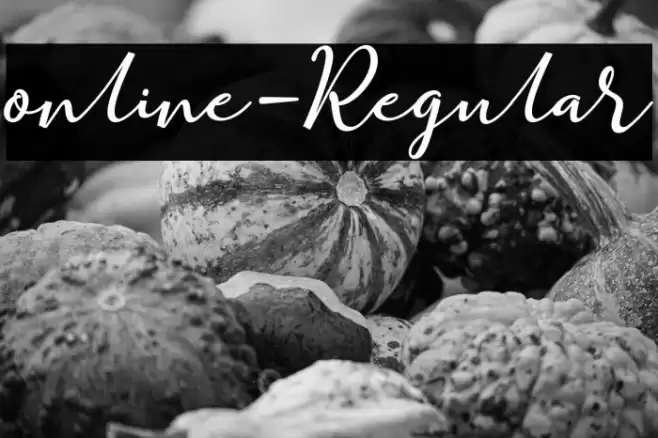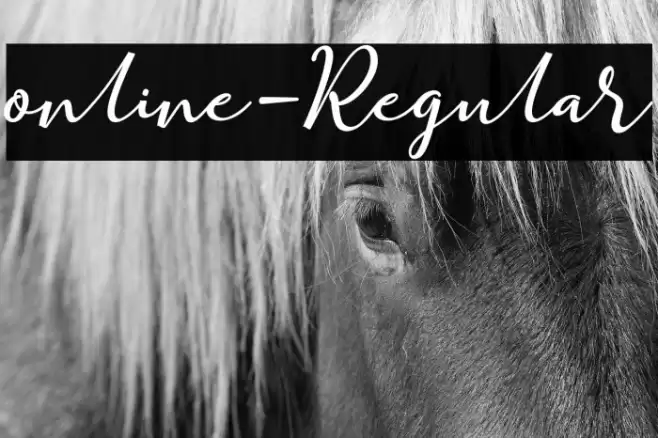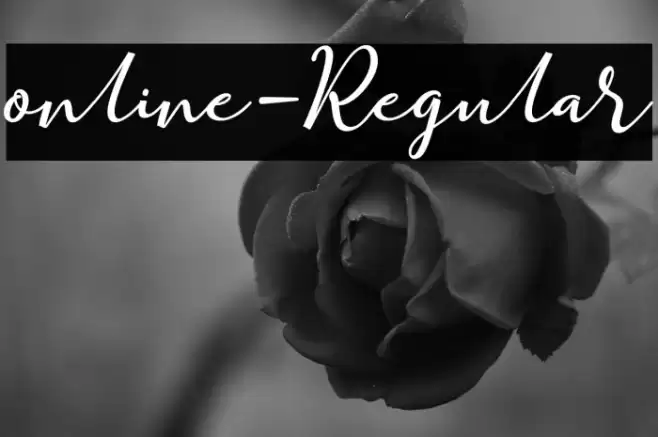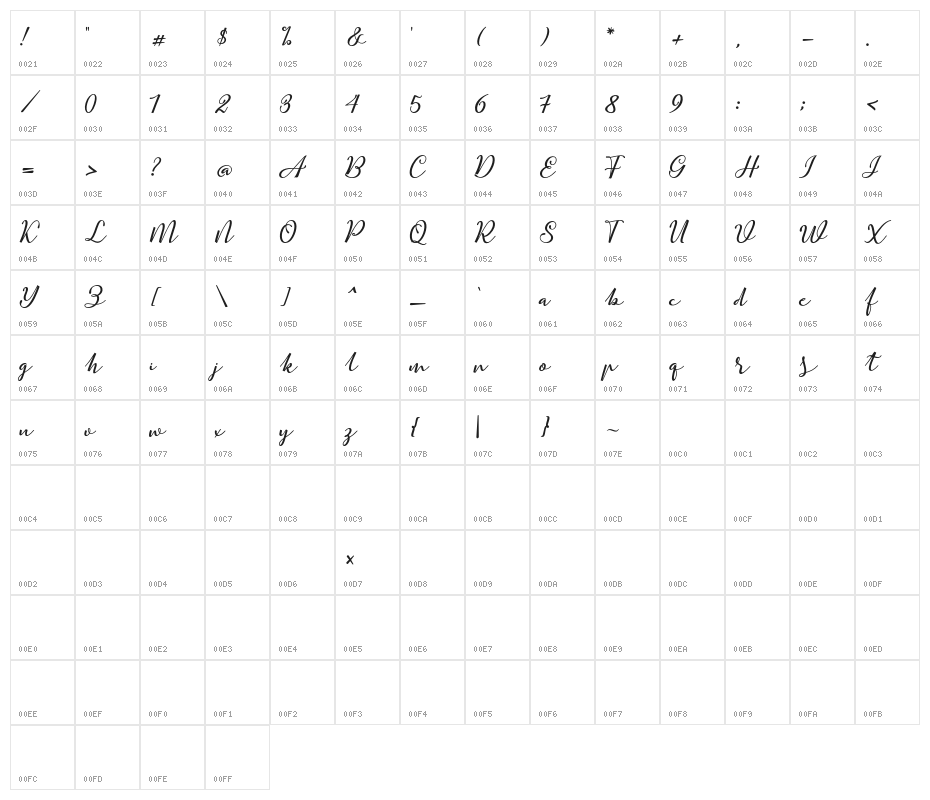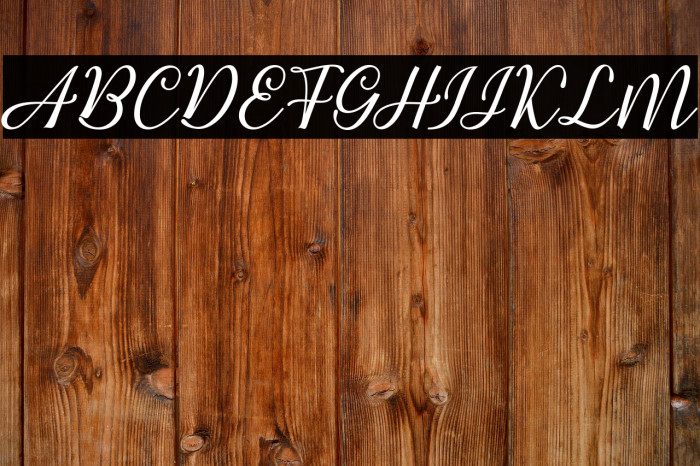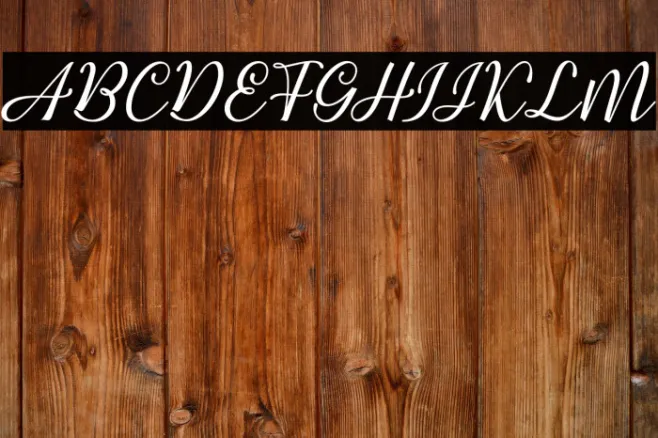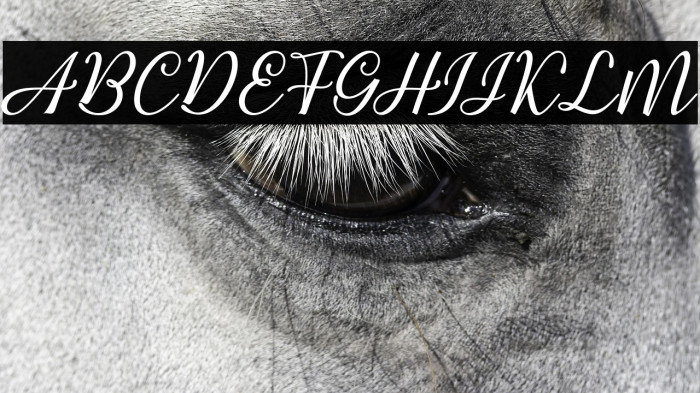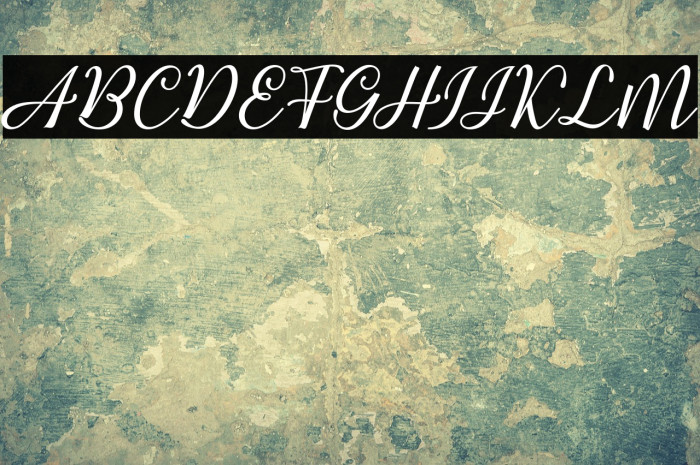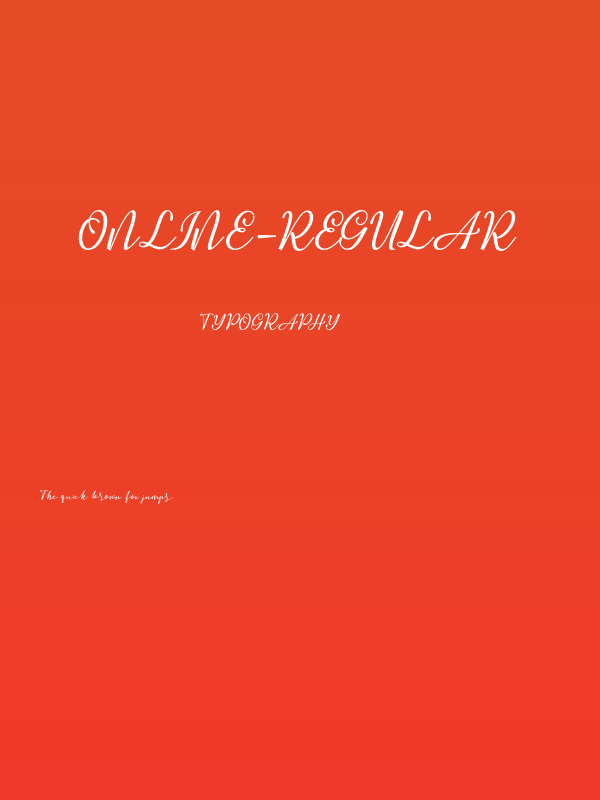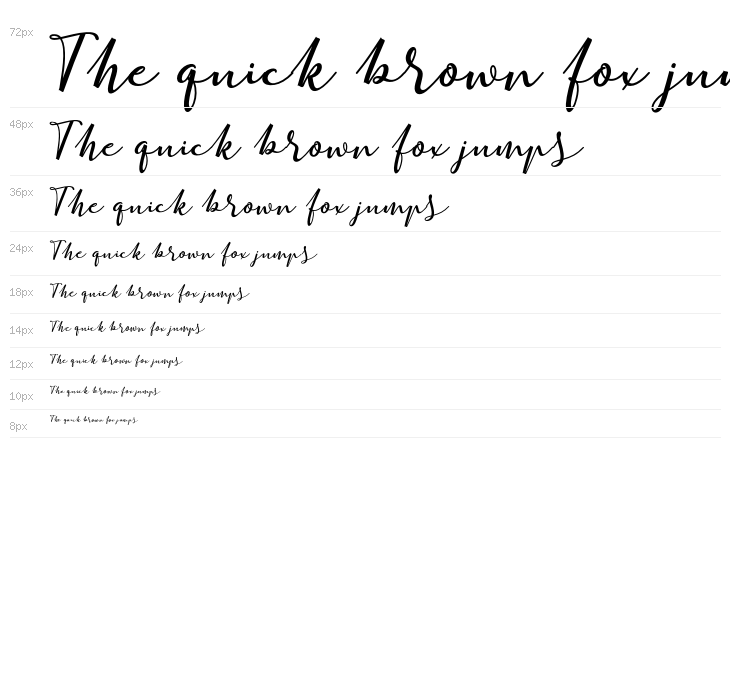
online-Regular Font
online-Regular Description
This font features an elegant and flowing script style, characterized by its smooth, cursive letterforms that mimic the fluidity of handwriting. The uppercase letters are slightly more ornate, with gentle curves and loops, while the lowercase letters maintain a consistent, graceful appearance. The numerals and special characters are designed to complement the overall aesthetic, ensuring a cohesive look across all text. The font's design is both sophisticated and approachable, making it suitable for a variety of applications where a touch of elegance is desired.
A graceful and elegant script font with flowing, cursive letterforms from Regular fonts.
- Proposed Projects: Ideal for wedding invitations, greeting cards, branding projects, and elegant logo designs.
- Overall Style: Elegant
- Use Case: Logos, Invitations, Decorative text